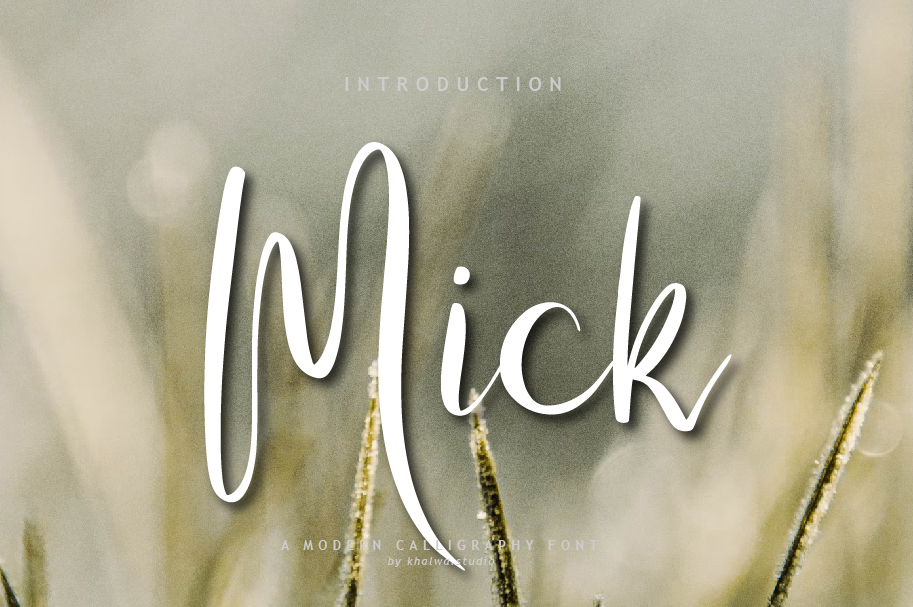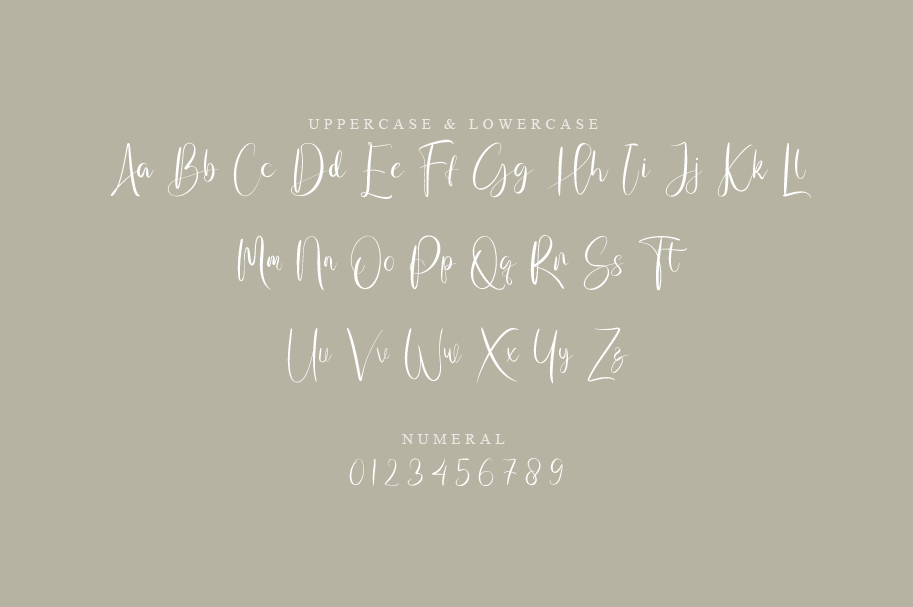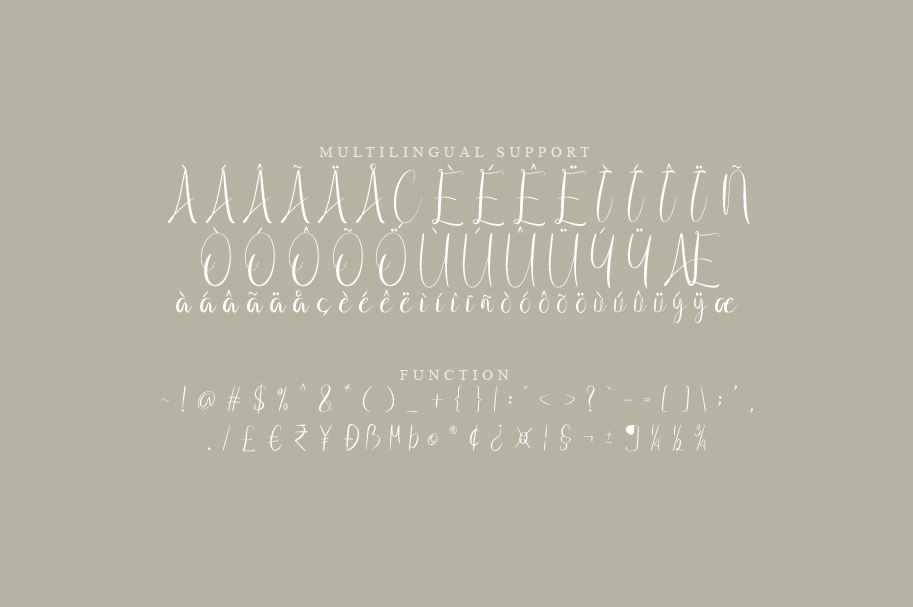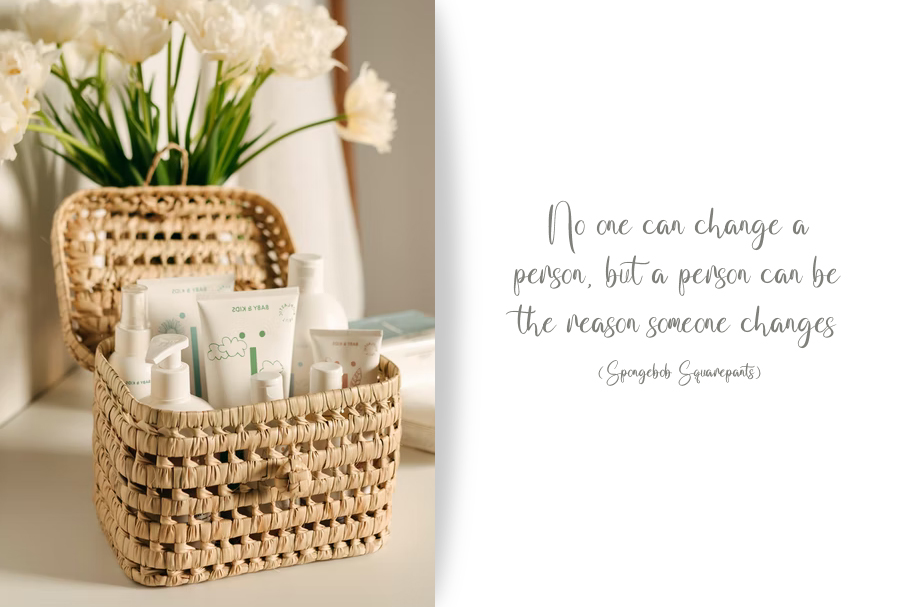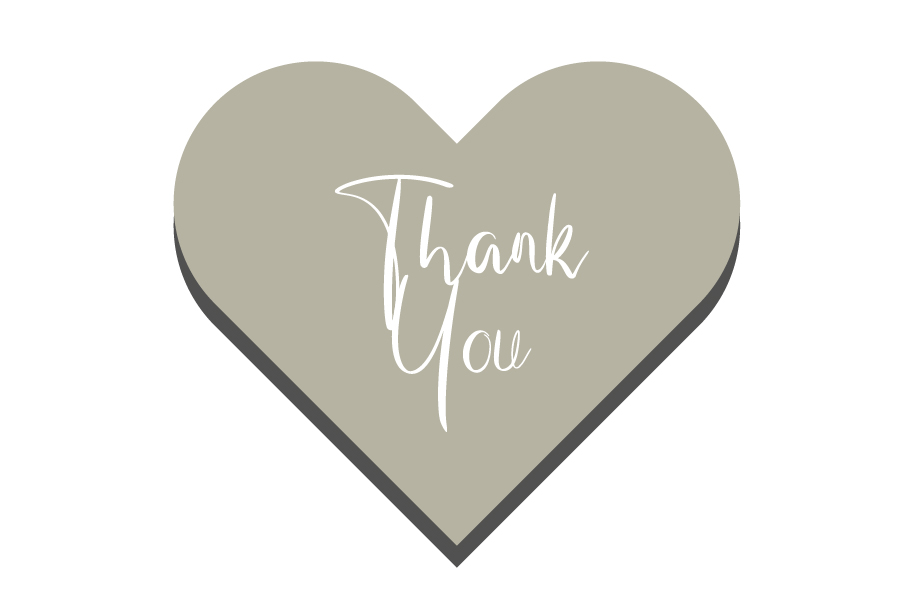
Mick Font
Mick Script Font
It’s a lovely and timeless handwritten font. It is the best choice for creating eye catching logos, branding and quotes. Every letter has a unique and beautiful touch, which will make your design come alive!